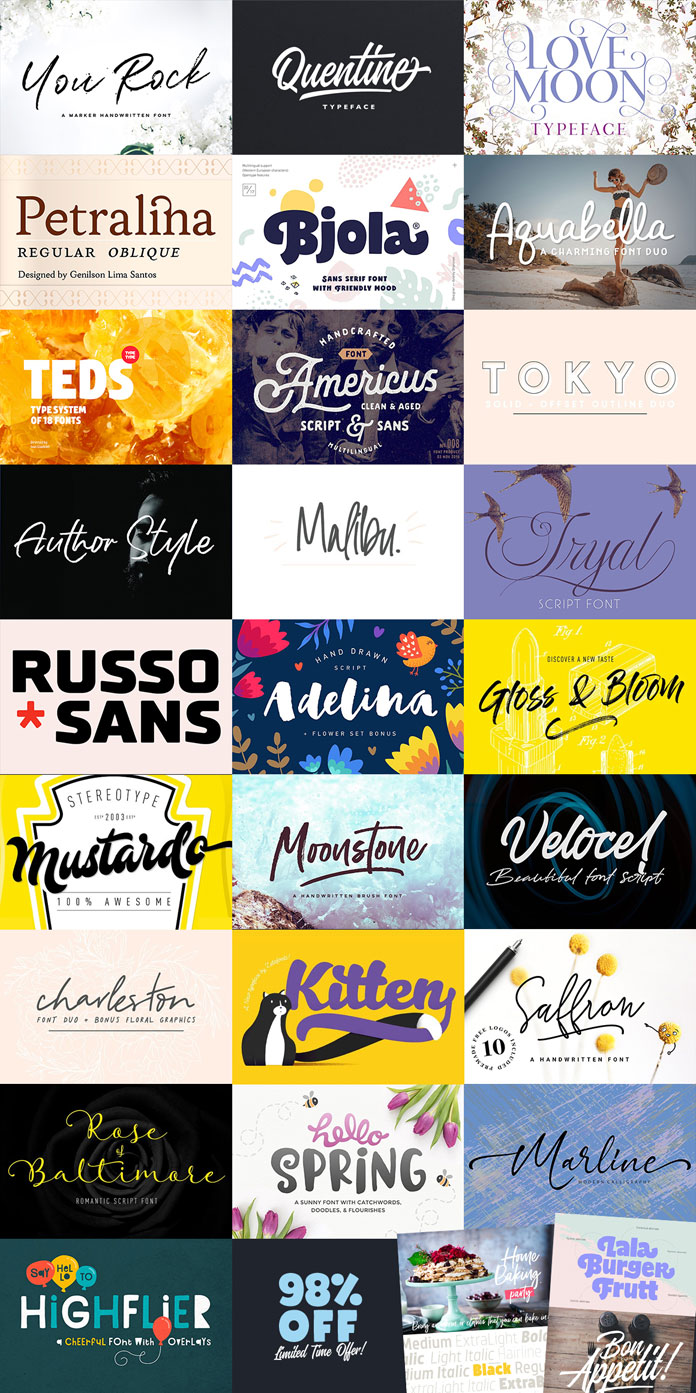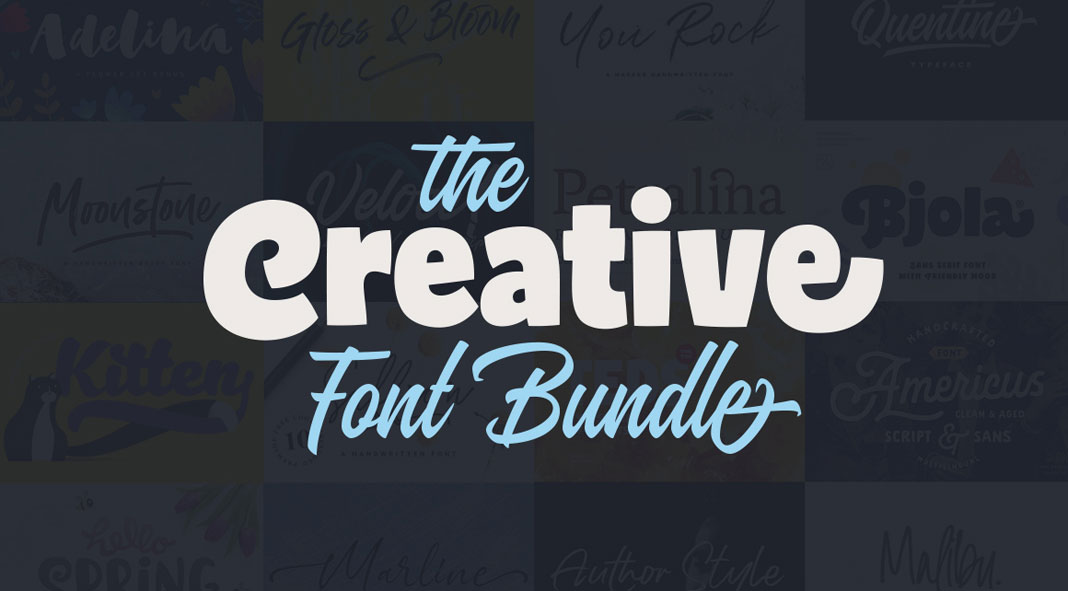
Available for only 14 days, this new bundle from Pixelo is equipped with 25 popular typefaces. For only $29 (98% off), you can expand your font library with a varied range of styles including sans serif, hand-drawn, display, and script fonts. The selected typefaces can be used for plenty of typographic work such as t-shirt design, branding, packaging, posters, and so much more. Some are equipped with a set of family members, while others come up with lots of alternate characters and different styles. The entire bundle is actually worth $1908 on the regular price, but only for a very limited time, you can grab them all for just $29!
The following fonts are included: Quentine by Alexcouture, Americus Script & Sans by Andrey Sharonov, Bjola Sans Serif by Andrey Sharonov, Adelina Script + Flower set Bonus by Andrey Sharonov, Kitten Full Family by Zetafonts, Moonstone Brush Font by VladCristea, You Rock Handwritten Font by VladCristea, Saffron Handwritten Font by VladCristea, TT Teds by TypeType, TT Russo Sans by TypeType, Hello Spring Font by Denise Chandler, Highflier Font by Denise Chandler, Aquabella Font Duo by Denise Chandler, Author Style by Ojes Studio, Marline by Ojes Studio, Veloce by Ojes Studio, Malibu (handwritten font plus extras) by Jen Wagner Co, Charleston font duo plus bonus florals by Jen Wagner Co, Tokyo designer font duo by Jen Wagner Co, Rose of Baltimore by StereoType, Mustardo by StereoType, Gloss & Bloom by StereoType, Tryal by Genilson Santos, Petralina by Genilson Santos, and Love Moon by Genilson Santos. To get a closer look, just click on the following link.